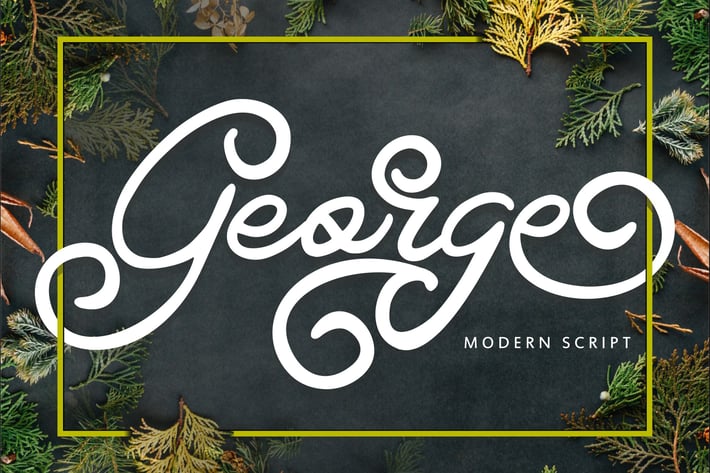
George | Modern Swirl Font
George | Modern Swirl Font with a calligraphy style, So beautiful on invitation like greeting cards, branding materials, business cards, quotes, posters, and more!